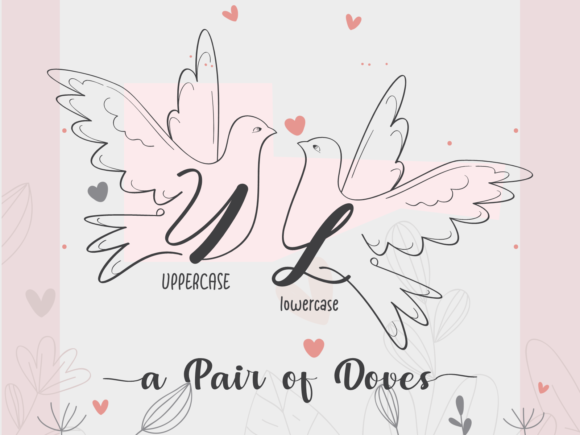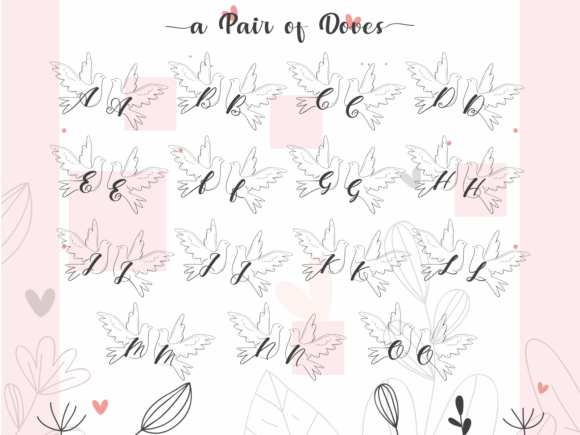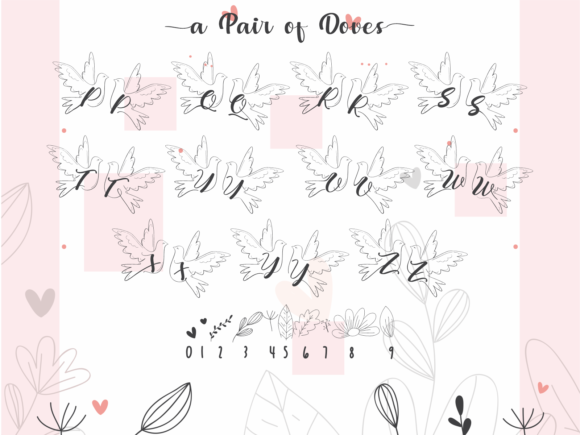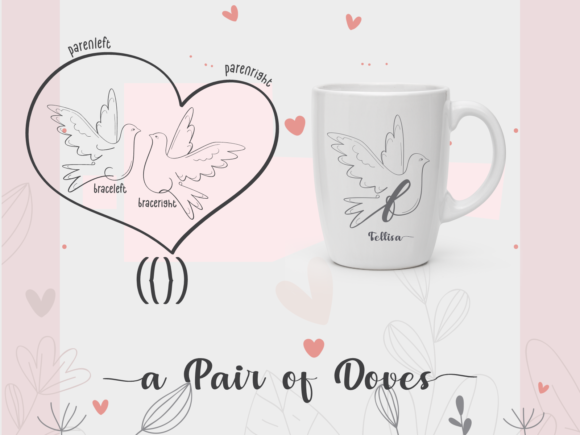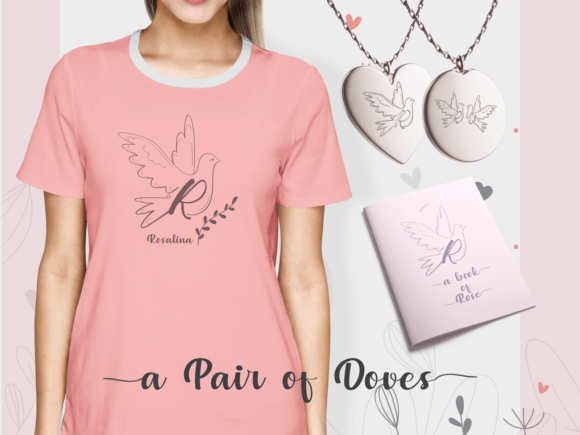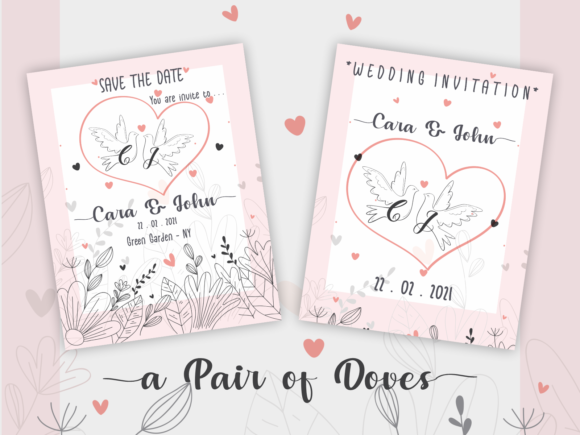
A Pair of Doves Font: A Heavenly Decorative Font for Your Creative Projects
Are you a designer or crafter looking for a unique and angelic font to elevate your creative projects? Look no further than A Pair of Doves Font, a stunning decorative font featuring dainty doves as ornaments. This incredibly versatile font is perfect for creating gorgeous wedding invitations, beautiful stationary art, eye-catching social media posts, and much more.
What Makes A Pair of Doves Font So Special?
A Pair of Doves Font is an incredibly unique and beautiful font that will add a touch of elegance and sophistication to any project. The font features dainty doves as ornaments, giving it a delicate and angelic feel. The doves are intricately designed, with attention to detail that makes them look like they were hand-drawn. The font is perfect for anyone looking to add a touch of whimsy and romance to their designs.
Uses for A Pair of Doves Font
A Pair of Doves Font is incredibly versatile and can be used for a wide range of creative projects. Here are just a few ideas to get you started:
- Wedding Invitations: Create beautiful and unique wedding invitations that will set the tone for the big day. The font’s elegant and romantic feel makes it perfect for wedding stationery.
- Stationary Art: Use A Pair of Doves Font to create gorgeous stationary art, including greeting cards, thank you cards, and more.
- Social Media Posts: Add a touch of elegance to your social media posts with A Pair of Doves Font. The font’s eye-catching design makes it perfect for creating engaging and shareable content.
- DIY Crafts: Use A Pair of Doves Font to create beautiful DIY crafts, including handmade cards, gift tags, and more.
Why Designers and Crafters Love A Pair of Doves Font
Designers and crafters love A Pair of Doves Font for many reasons. Here are just a few:
- Unique Design: A Pair of Doves Font features a unique and eye-catching design that will set your projects apart from the rest.
- Versatility: The font is incredibly versatile and can be used for a wide range of creative projects.
- Elegant Feel: The font’s elegant and romantic feel makes it perfect for creating beautiful and sophisticated designs.
Tips for Using A Pair of Doves Font
Here are a few tips for using A Pair of Doves Font:
- Experiment with Different Sizes: Experiment with different font sizes to find the perfect size for your project.
- Pair with Other Fonts: Pair A Pair of Doves Font with other fonts to create a unique and eye-catching design.
- Use for Headings and Titles: Use A Pair of Doves Font for headings and titles to add a touch of elegance to your designs.
- Have Fun: Most importantly, have fun and be creative with A Pair of Doves Font!